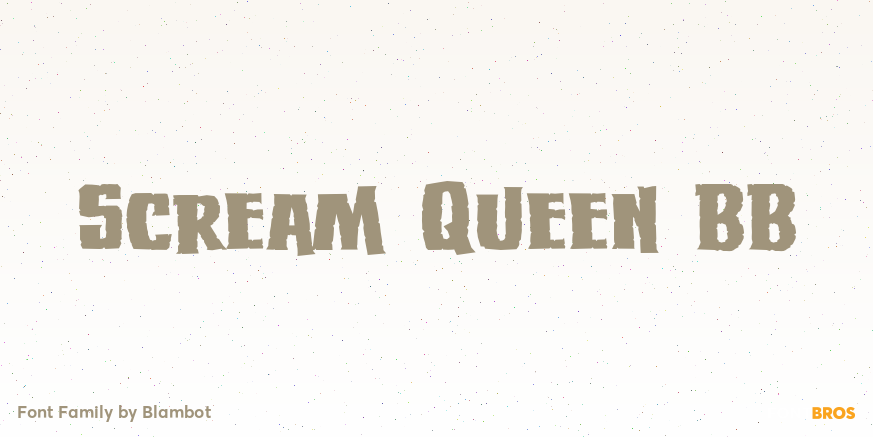
Scream Queen BB
About Scream Queen BB
She may be home alone, but this feisty lady is ready to face what goes bump in the night! Regular, Italic, Thin & Thin Italic. Comes with a ghoulish compliment of European characters, a skull bullet and some swashes!